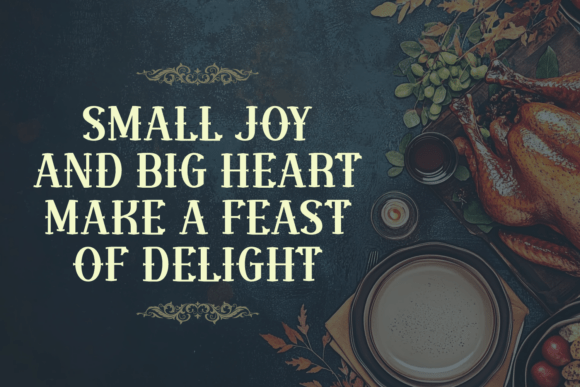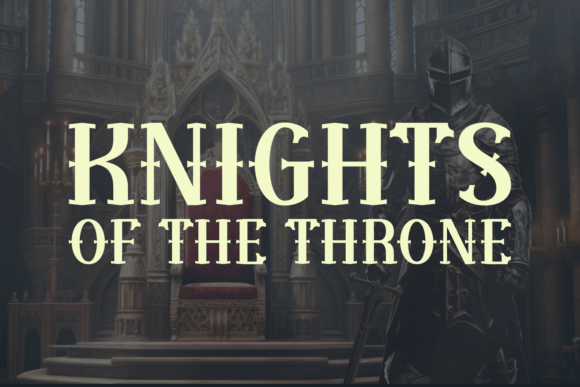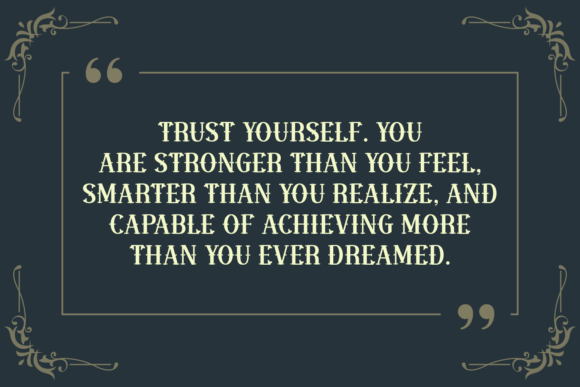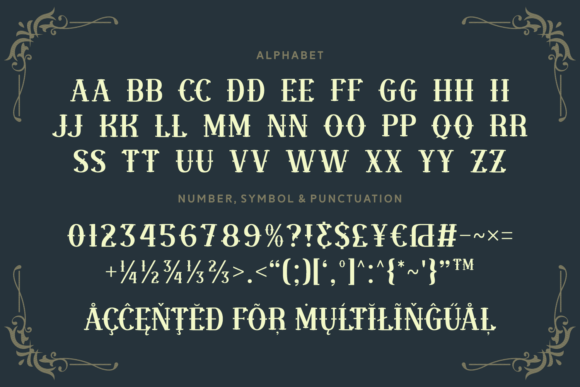
Introducing Great Feast Font: A Bold and Edgy Lettered Blackletter Font
Are you tired of using the same old fonts in your design projects? Look no further than Great Feast Font, a bold and edgy lettered blackletter font that’s sure to add a touch of sophistication and elegance to your work. With its unique and striking design, Great Feast is the perfect choice for designers and crafters looking to make a statement.
What is Great Feast Font?
Great Feast Font is a bold and edgy lettered blackletter font that’s designed to make a statement. Its unique and striking design features intricate details and a distinctive style that’s sure to grab attention. Whether you’re working on a logo, a poster, or a craft project, Great Feast Font is the perfect choice for adding a touch of drama and flair.
Key Features of Great Feast Font
- Bold and Edgy Design: Great Feast Font features a bold and edgy design that’s perfect for making a statement.
- Intricate Details: The font features intricate details and a distinctive style that’s sure to grab attention.
- Blackletter Style: Great Feast Font is a blackletter font, which means it’s perfect for creating dramatic and eye-catching text.
Why Choose Great Feast Font?
There are many reasons why Great Feast Font is the perfect choice for designers and crafters. Here are just a few:
- Unique and Striking Design: Great Feast Font features a unique and striking design that’s sure to grab attention.
- Versatile: The font is versatile and can be used in a variety of design projects, from logos and posters to craft projects and more.
- High-Quality: Great Feast Font is a high-quality font that’s designed to produce crisp and clear text.
- Easy to Read: Despite its bold and edgy design, Great Feast Font is easy to read, even at small sizes.
Design Tips and Tricks
Here are a few design tips and tricks to help you get the most out of Great Feast Font:
- Use it as a Headline Font: Great Feast Font is perfect for use as a headline font, adding a touch of drama and flair to your text.
- Pair it with a Serif Font: Pair Great Feast Font with a serif font for a classic and elegant look.
| Author | Arnika Studio |
Great Feast Font is a bold and edgy lettered blackletter font that’s perfect for designers and crafters looking to add a touch of sophistication and elegance to their work. With its unique and striking design, intricate details, and easy-to-use interface, Great Feast Font is the perfect choice for a wide range of design projects. So why wait? Download Great Feast Font today and see the difference it can make in your work.